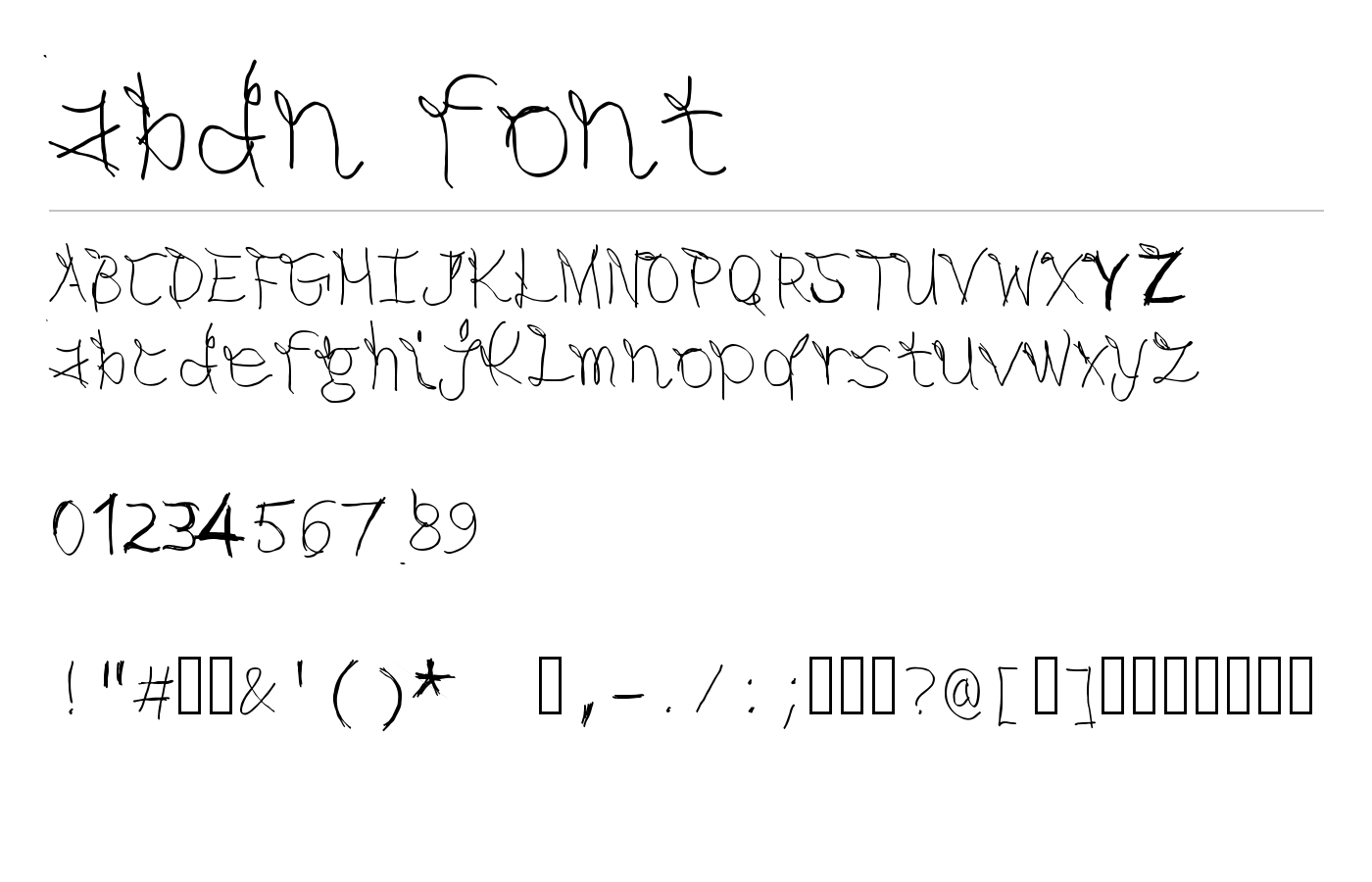
Abdn font is a delicate, whimsical handwritten typeface with a thin, airy stroke and playful loops in each letterform, giving it a light and casual feel. Its irregular lines and unique character shapes make it ideal for creative projects, children’s books, or any design seeking a charming, informal touch. This font works best in small doses such as headings or decorative accents where its quirky personality can truly shine.
abdn font
About abdn font